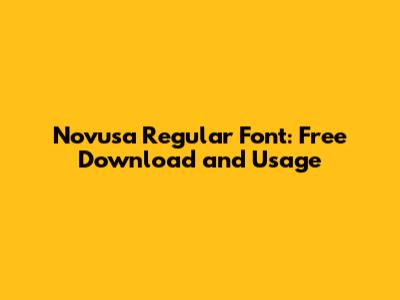
- Contrast is key: Choose a font that contrasts with Novusa Regular in terms of weight, style, or serifs. For example, you could pair Novusa Regular (a sans-serif font) with a serif font like Times New Roman or Garamond for headings.
- Website Headers: Use Novusa Regular for website headers to create a clean and modern look. Pair it with a complementary font for body text to enhance readability.
- Logo Design: Novusa Regular's versatility makes it suitable for logo design. Its clean lines can convey a sense of professionalism and trustworthiness.
- Print Materials: Use Novusa Regular in brochures, flyers, and posters to ensure readability and visual appeal. Its balanced proportions make it easy on the eyes.
- Presentations: Novusa Regular is a great choice for presentations, as it's easy to read and projects a professional image. Use it for headings, body text, and captions.
- Overusing the font: While Novusa Regular is versatile, it's important not to overuse it. Mix it up with other fonts to create visual interest.
- Ignoring readability: Make sure the font is legible at different sizes and in different contexts. Adjust the font size, line height, and letter spacing as needed.
Hey guys! Are you looking to jazz up your design projects with a sleek and modern font? Look no further! In this article, we're diving deep into the Novusa Regular font, exploring where you can snag it for free, how to use it, and why it might just be the perfect typeface for your next creative endeavor.
What is Novusa Regular Font?
Before we get into the nitty-gritty of downloading and using Novusa Regular, let's talk about what makes this font so special. Novusa Regular is a sans-serif typeface known for its clean lines, balanced proportions, and overall modern aesthetic. It's the kind of font that looks equally at home in a corporate report and a trendy website header. Its neutrality and readability make it a versatile choice for a wide range of applications.